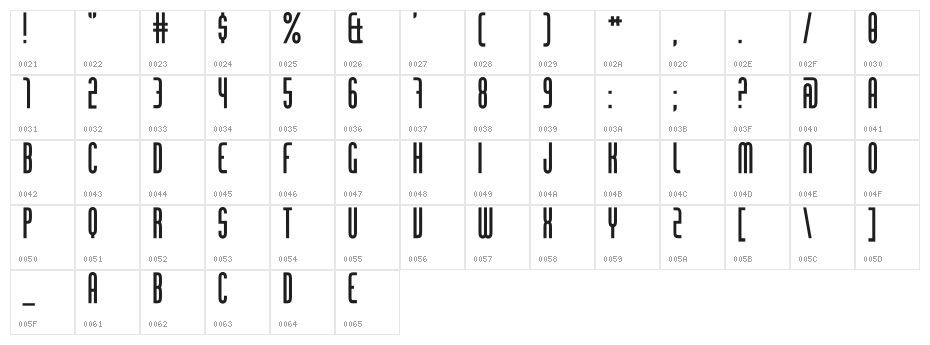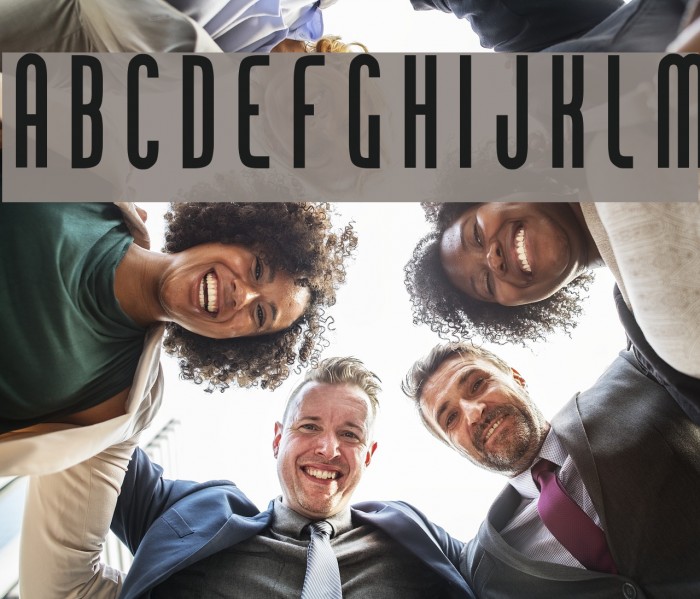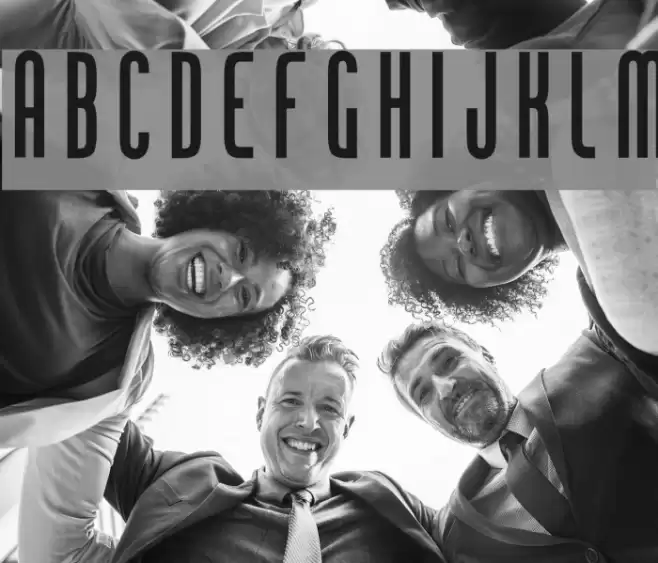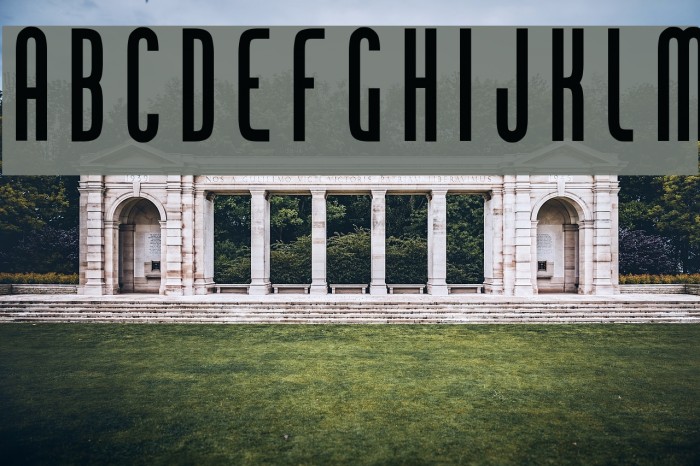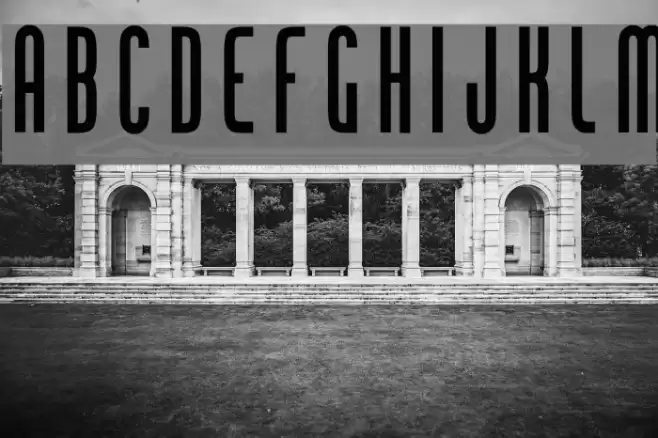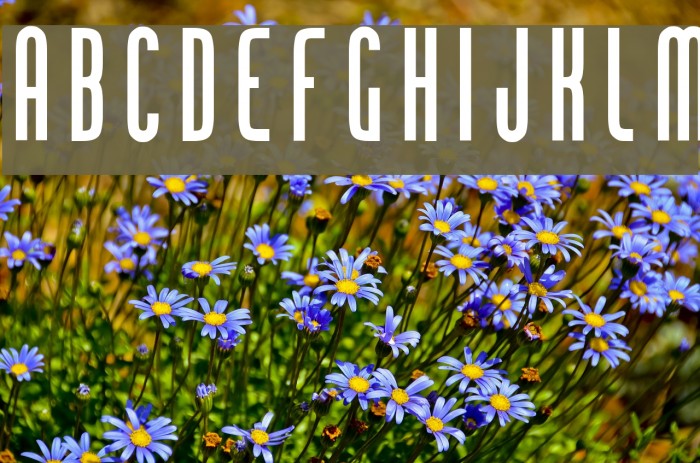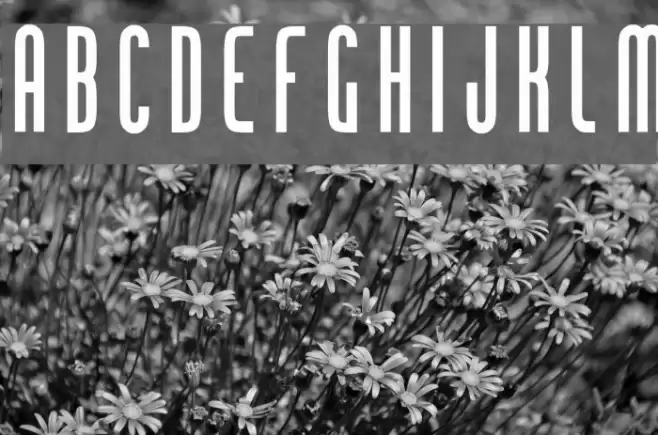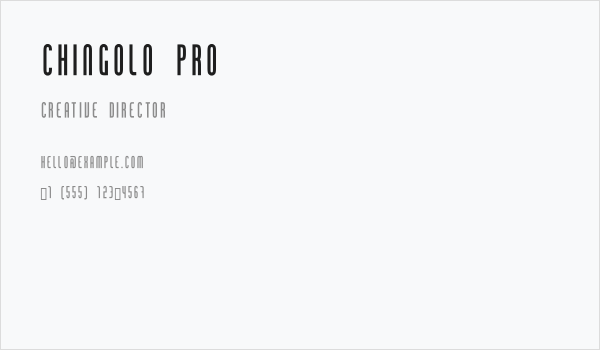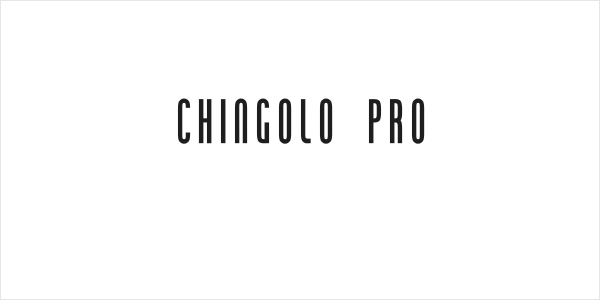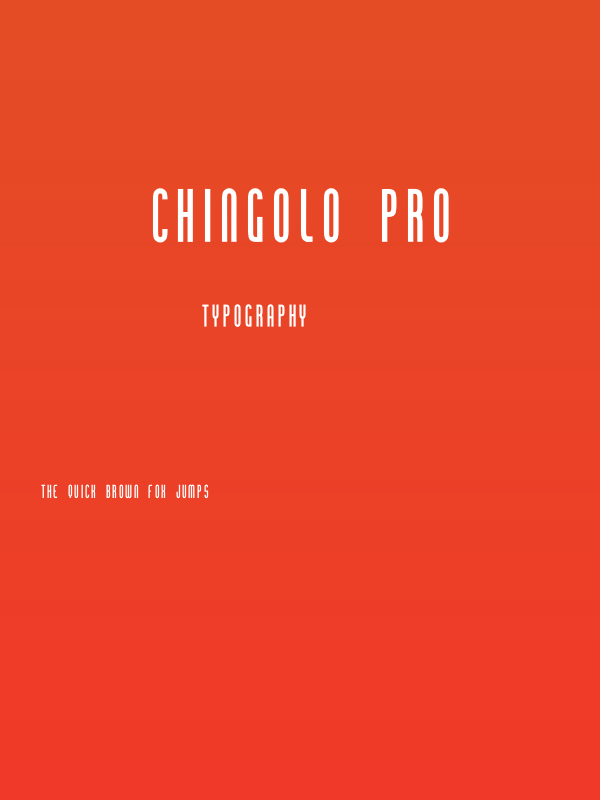
Chingolo Pro Font
Chingolo Pro Description
This font features a tall, narrow design with a distinctly modern and geometric aesthetic. The characters are elongated and have a uniform stroke width, giving them a sleek and streamlined appearance. The uppercase and lowercase letters maintain a consistent height, contributing to a cohesive look. The numerals and special characters are designed to match the overall style, ensuring visual harmony across all elements. This font's unique structure makes it stand out, while its clean lines and minimalistic approach provide versatility in various design contexts.
| Proposed Projects | Ideal for branding, posters, headlines, and modern digital interfaces. |